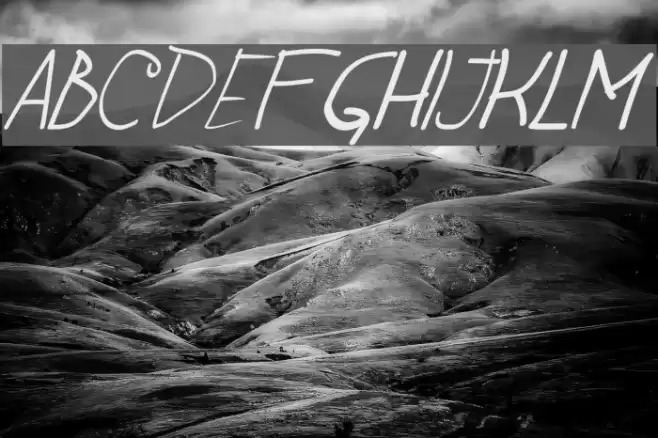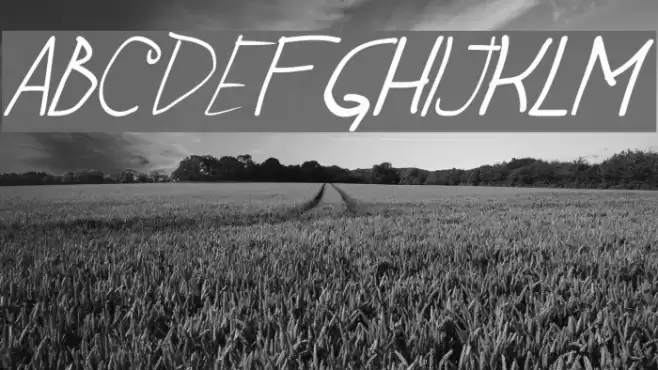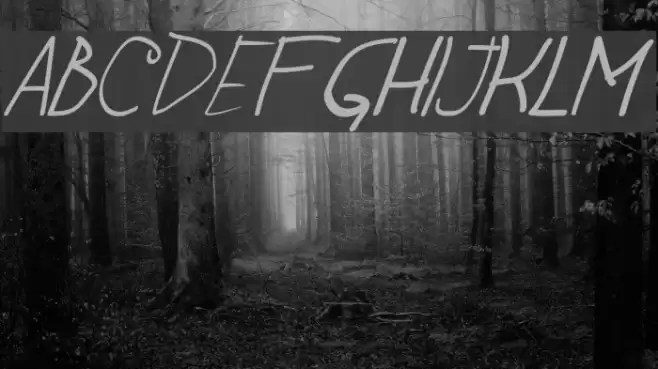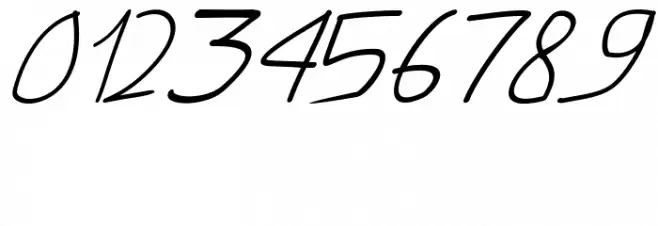
KecilCabeRawit-Italic Font
KecilCabeRawit-Italic Description
This font exhibits a playful and dynamic handwritten style, characterized by its fluid and slightly irregular strokes. The letters have a casual, informal appearance, with varying stroke widths that add a sense of movement and energy. The uppercase letters are bold and slightly slanted, while the lowercase letters maintain a consistent flow, enhancing readability. The numbers are uniquely styled, complementing the overall aesthetic. This font's distinctive personality makes it suitable for creative and artistic projects.
A playful, dynamic handwritten font with fluid, irregular strokes from Uncategorized fonts.
- Proposed Projects: Ideal for greeting cards, invitations, artistic posters, and branding materials that require a personal touch.
- Overall Style: Casual, Artistic
- Use Case: Logos, Headlines, Creative projects